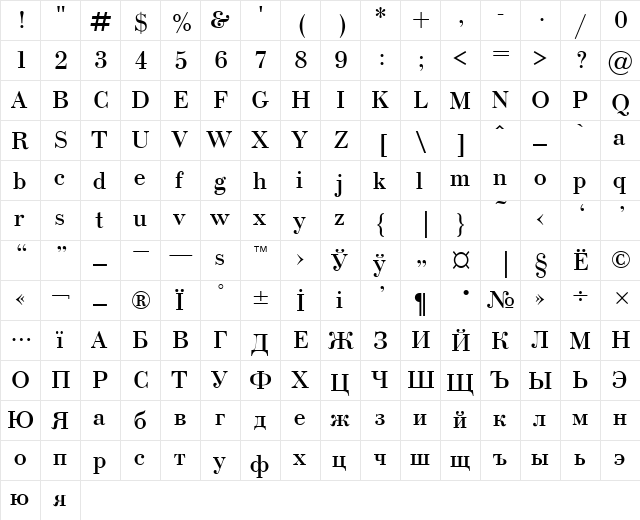
Olga Plain
Design Context for Olga Typeface
Olga offers clean, dependable letterforms without strong stylistic allegiance, making it a practical choice for designers who need flexibility.